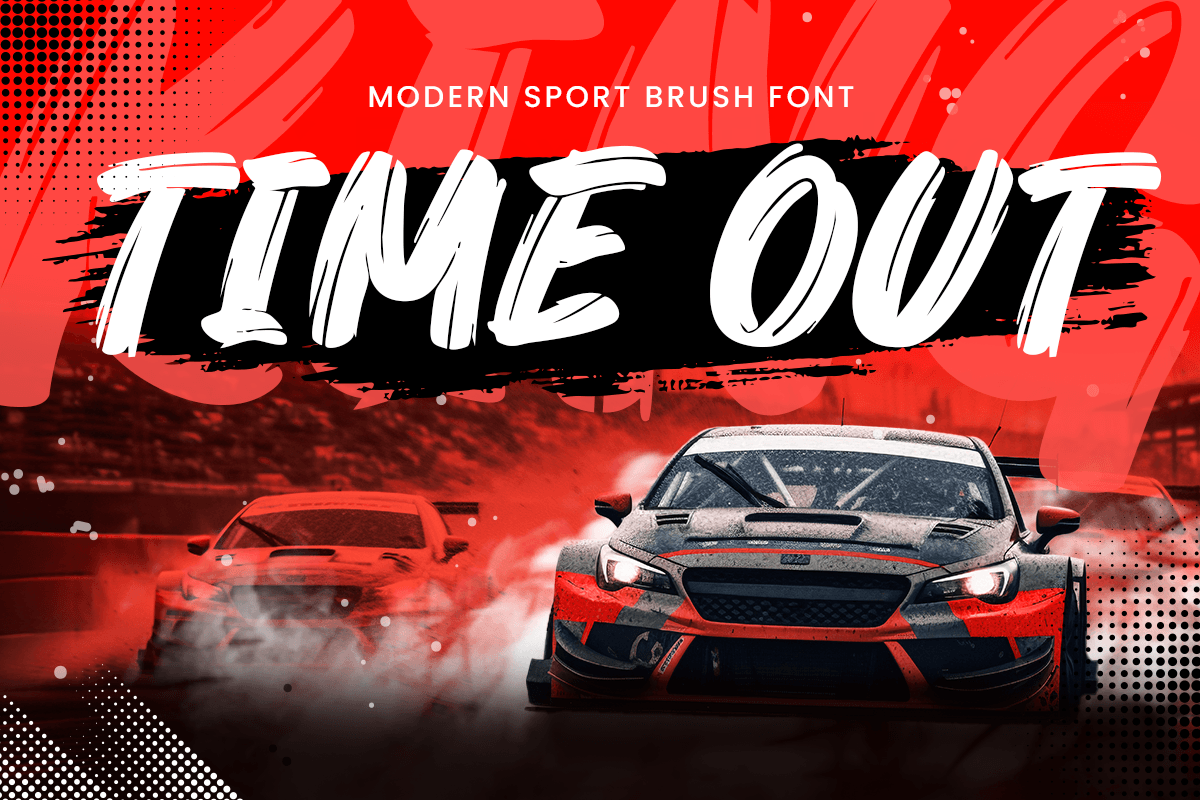
Time Out
-Modern Sport Brush FontTIME OUT is a modern sport brush font with powerful, kinetic strokes that embody energy, movement, and competitive spirit. Its bold, handcrafted style blends the raw intensity of brush lettering with polished design sensibilities, making it ideal for eye-catching sports and active lifestyle visuals.
Designed for high-impact use, this dynamic brush display font instantly captures attention in logos, team identities, event posters, fitness branding, creative graphics, racing and esports covers, and social media headlines. The organic brush textures add character that feels both authentic and contemporary.
Whether you’re crafting a bold team emblem, a race day poster, or a high-energy brand identity, TIME OUT delivers an athletic edge that elevates any design. Its versatile performance makes it a go-to choice for fitness studios, sportswear labels, competition graphics, and action-oriented campaigns.
TIME OUT – Modern Sport Brush Font Features
Energetic modern sport brush style
Bold, expressive letterforms for standout headlines
Ideal for sports branding, logos, and posters
Perfect for racing, fitness, team, and active lifestyle projects
Strong presence for social media graphics and banners
Enhanced for impactful visual compositions
Make every design sprint to the finish with TIME OUT – a strong, athletic brush font built for spirited, competitive visuals 🏁.